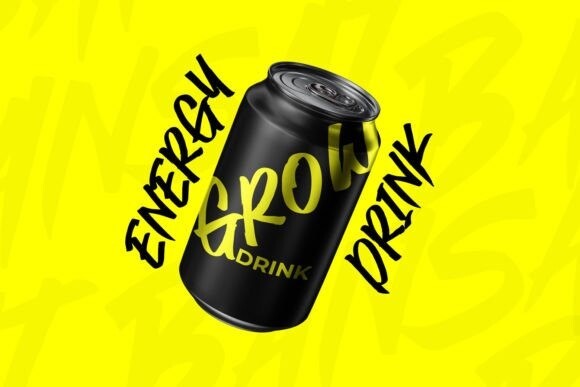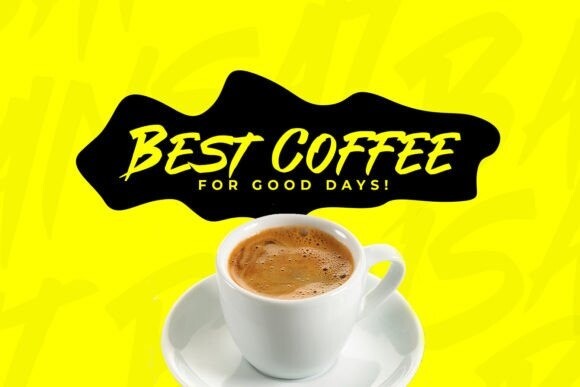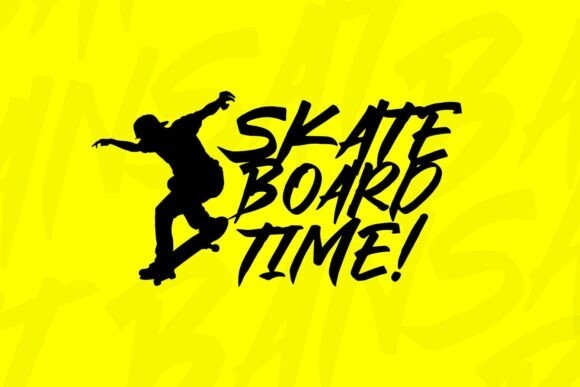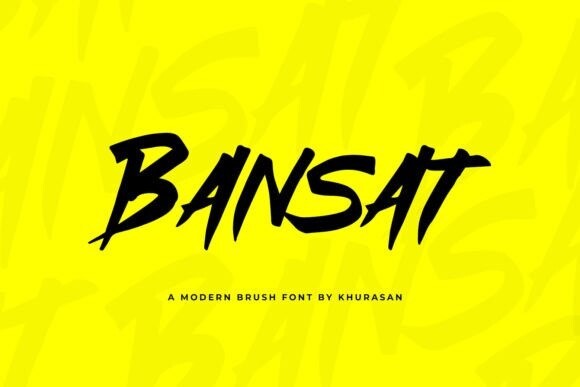
Bansat Font
Bansat Font is bold, tightly spaced, and retains all of the brush imperfections. Perfect for posters, logos, magazines, book covers, banners, and many more! Get this quirky display font, and use it to create lovely designs! It can easily be matched to an incredibly large set of projects, so add it to your creative ideas and notice how it makes them stand out!